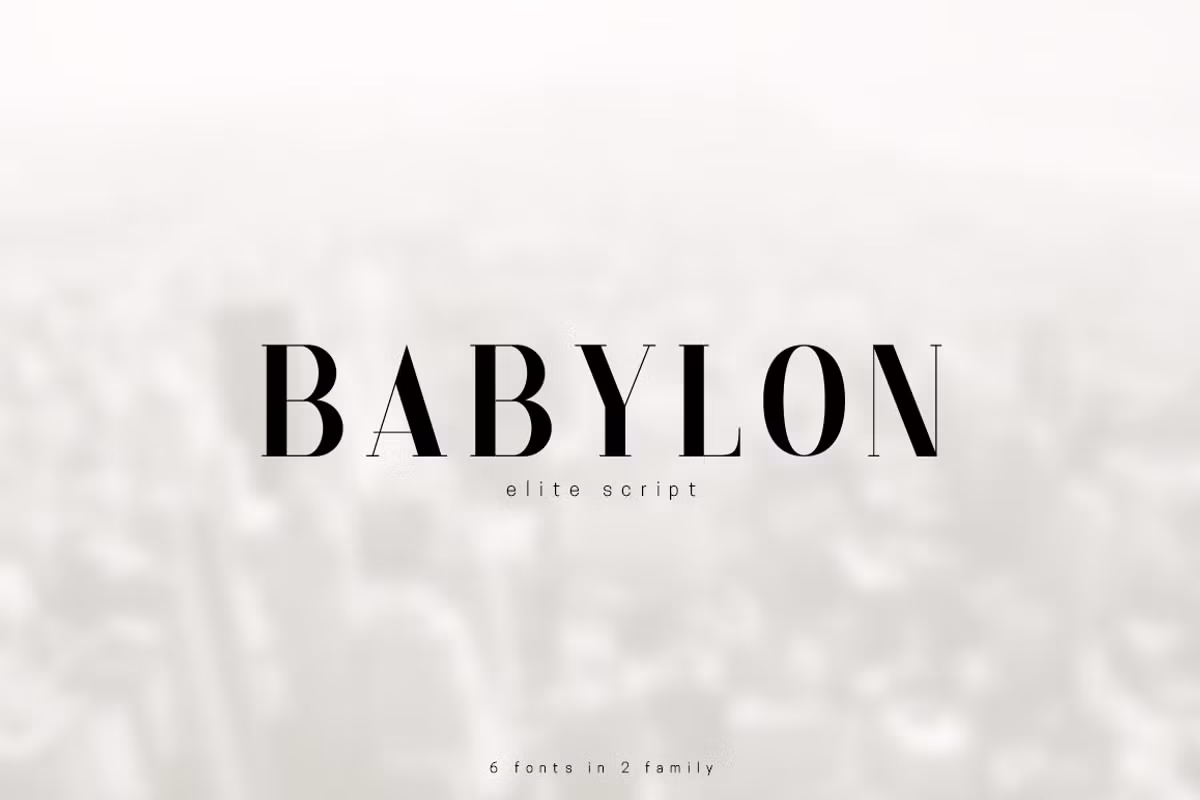
Babylon – Pack of 6 Fonts Free Download is a bold and creative font collection inspired by ancient aesthetics with a modern design twist. Please note, you are required to purchase this font pack for commercial use. It is available for free download for testing and personal projects only.
This versatile bundle includes six unique fonts ranging from elegant serifs to decorative display styles—perfect for branding, posters, packaging, apparel, editorial layouts, and storytelling visuals. Whether you're aiming for a mystical, historical, or artistic vibe, Babylon delivers timeless character and visual richness.